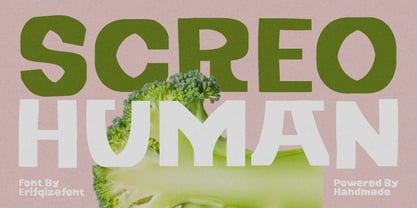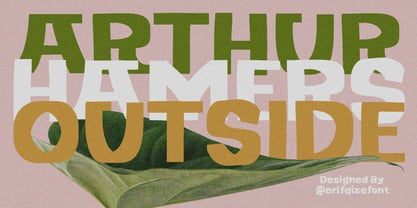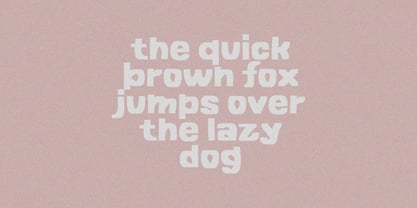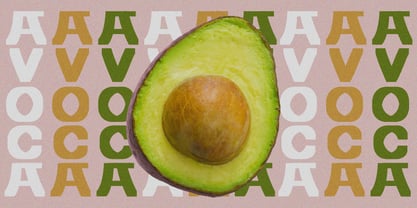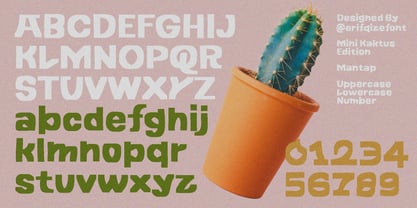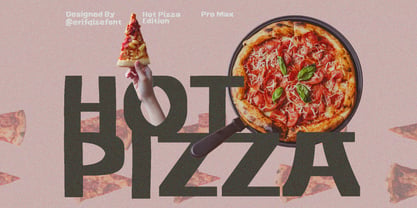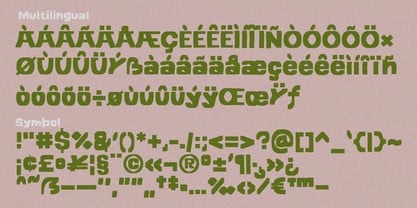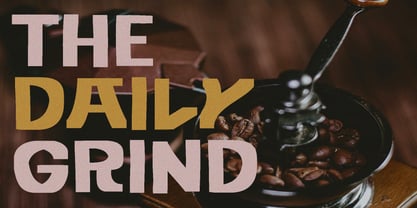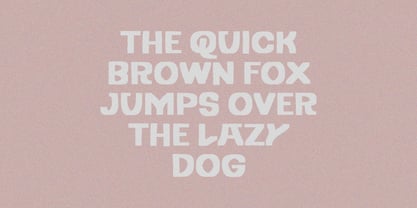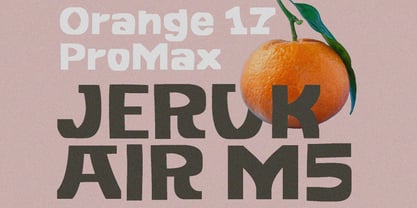
Screo Human
by Erifqizefont
The Screo Human Font Family was designed by Eka Rifqi Setiawan and published by Erifqizefont. Screo Human contains 1 styles. More about this family
SCREO HUMAN is a bold display font with strong humanist character and organic geometry. Built with solid, rounded letterforms and confident proportions, this font delivers a warm, grounded, and natural feel while remaining modern and highly readable. Inspired by handmade typography and natural forms, SCREO HUMAN combines simplicity with strength. Its clean shapes and bold weight make it perfect for headlines, posters, branding, editorial design, packaging, social media graphics, and experimental layouts. The font works especially well for projects that aim to feel human, earthy, honest, and expressive. Whether used in minimalist compositions or bold visual statements, SCREO HUMAN brings a handcrafted soul with a contemporary edge—making your designs feel alive, approachable, and impactful. Designed by Erifqizefont.
Designers: Eka Rifqi Setiawan
Foundry: Erifqizefont
Introducing Erifqizefont, a Foundry led by Eka Rifqi Setiawan. Originating from Eka's experience as an Icon Designer, Erifqizefont specializes in bold, symmetrical Display Fonts with futuristic elements, occasionally exploring retro and whimsical styles. Based in Indonesia, Erifqizefont integrates the nation's cultural heritage into its designs. As a sole proprietor, Eka focuses on crafting superior, unique fonts, setting Erifqizefont apart in the industry.